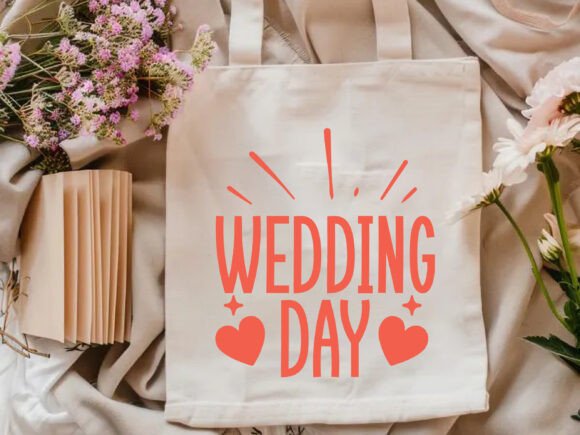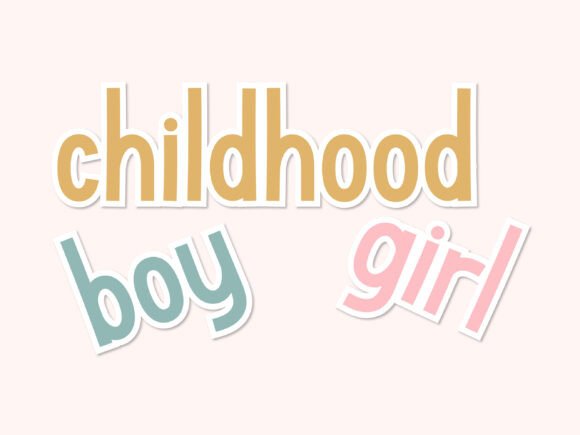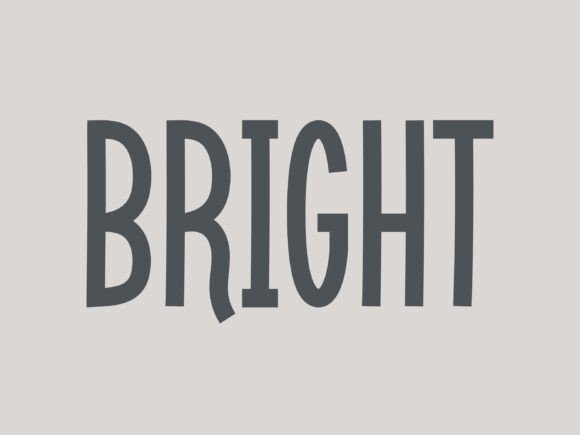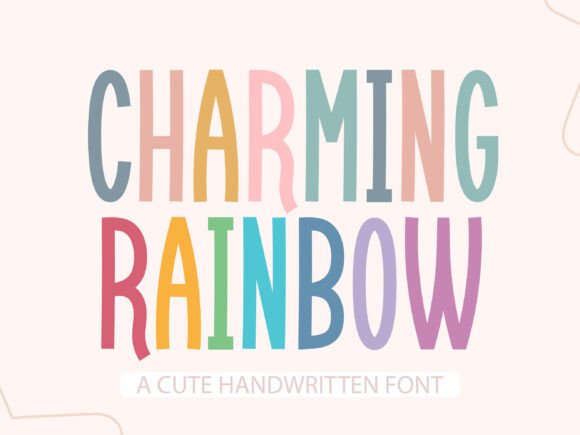
Introducing Charming Rainbow Font: Elevate Your Designs with a Touch of Elegance
In the world of digital design, fonts play a crucial role in conveying the tone and aesthetic of a project. For crafters, designers, and DIY enthusiasts, finding the perfect font can be a game-changer. If you’re on the hunt for a stylish and eye-catching font that adds a dash of elegance to your creations, look no further than Charming Rainbow Font. This sans serif font is a versatile and beautiful addition to any design or craft idea, and we’re excited to dive into its features and uses.
What is Charming Rainbow Font?
Charming Rainbow Font is a unique and modern sans serif font that boasts a captivating rainbow effect. Its distinctive design makes it perfect for a wide range of creative projects, from digital designs and crafts to branding and marketing materials. The font’s clean lines and elegant curves ensure that it remains stylish and sophisticated, while its rainbow colors add a playful touch.
Key Features of Charming Rainbow Font
- Unique Rainbow Design: The font’s standout feature is its beautiful rainbow color scheme, which adds a pop of color and visual interest to any design.
- Sans Serif Style: The font’s clean and minimalist sans serif style ensures that it remains easy to read and versatile.
- Elegant and Sophisticated: Charming Rainbow Font’s elegant curves and lines make it perfect for designs that require a touch of sophistication.
- Highly Versatile: The font can be used for a wide range of projects, from digital designs and crafts to branding and marketing materials.
Uses for Charming Rainbow Font
Charming Rainbow Font is an incredibly versatile font that can be used for various creative projects. Here are some ideas to get you started:
- Digital Designs: Use Charming Rainbow Font to add a touch of elegance to your digital designs, such as social media graphics, blog posts, and website headers.
- Crafts and DIY Projects: Add a personal touch to your craft and DIY projects, such as handmade cards, invitations, and scrapbooking.
- Branding and Marketing: Use Charming Rainbow Font to create eye-catching branding and marketing materials, such as logos, brochures, and flyers.
- Party Decorations: Create custom party decorations, such as banners, garlands, and cupcake toppers, using Charming Rainbow Font.
Tips for Using Charming Rainbow Font
To get the most out of Charming Rainbow Font, here are some tips to keep in mind:
- Pair with Neutral Backgrounds: Pair Charming Rainbow Font with neutral backgrounds to make the font’s colors pop.
- Experiment with Colors: Don’t be afraid to experiment with different color combinations to create unique and eye-catching designs.
- Use for Headings and Titles: Use Charming Rainbow Font for headings and titles to add visual interest and create a focal point.
Charming Rainbow Font is a beautiful and versatile font that adds a touch of elegance and uniqueness to any design or craft idea. Its unique rainbow design, sans serif style, and elegant curves make it perfect for a wide range of creative projects. With its high versatility and ease of use, Charming Rainbow Font is a must-have for designers, crafters, and DIY enthusiasts. So why wait? Download Charming Rainbow Font today and elevate your designs with a touch of charm and sophistication!